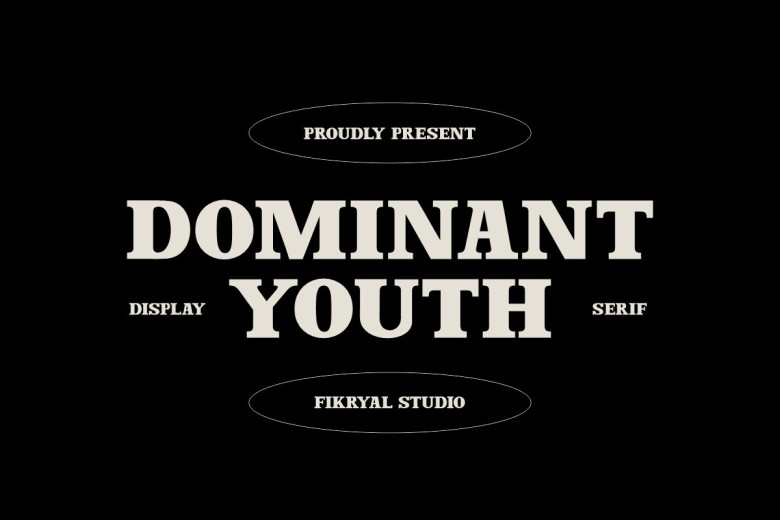
Dominant Youth Font
Dominant Youth Serif Font
Dominant Youth font exudes confidence, strength and boldness – an irresistibly charming serif font which leaves an indelible mark. Bold yet robust letterforms combine classic elegance with contemporary flair in Dominant Youth; its tall, slender design adds sophistication while the sharp serifs provide a distinctive edge.
Dominant Youth was carefully crafted to draw in attention and convey a youthful and bold aesthetic. Perfect for branding, headlines, posters and editorial design projects alike – including branding itself! With print and digital versions available to ensure that your message reaches its intended target.
Dominant Youth Serif Font